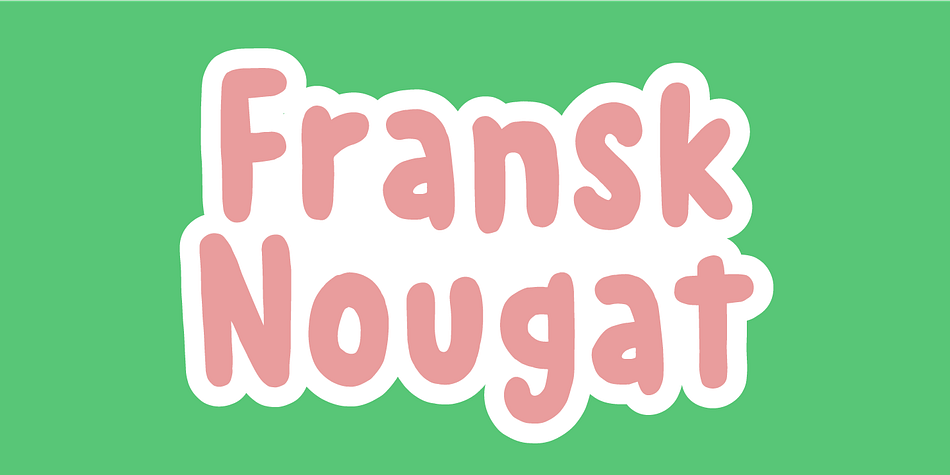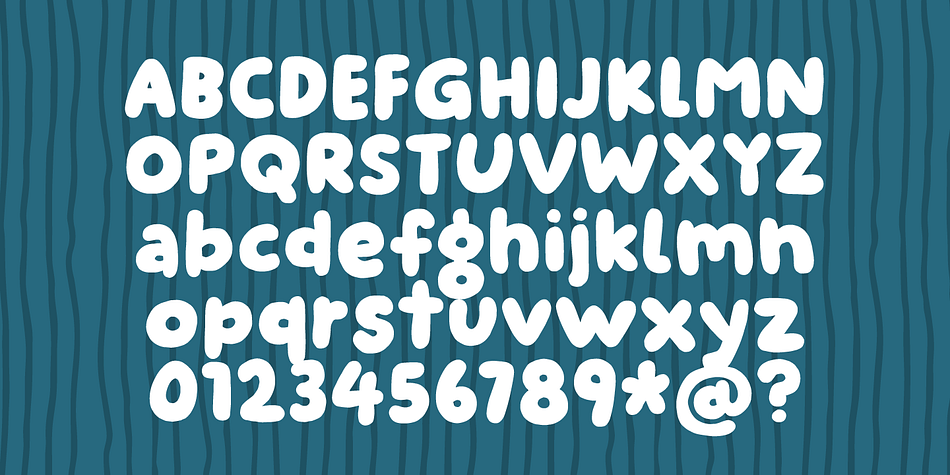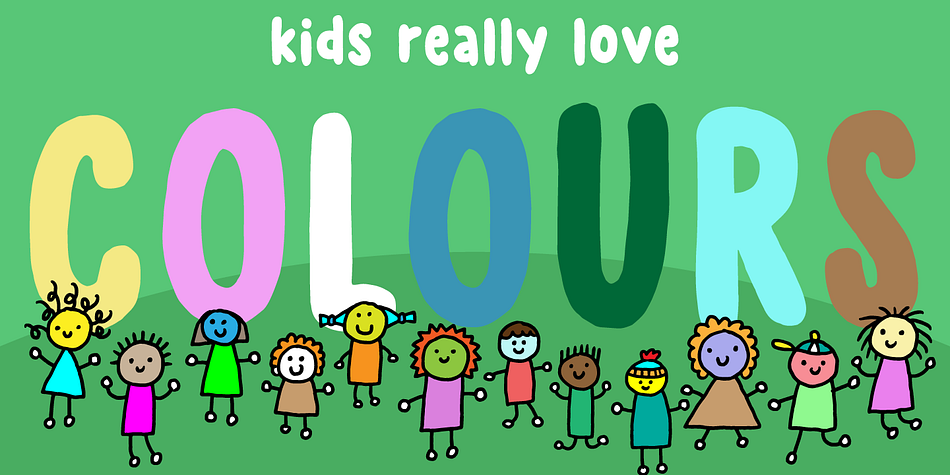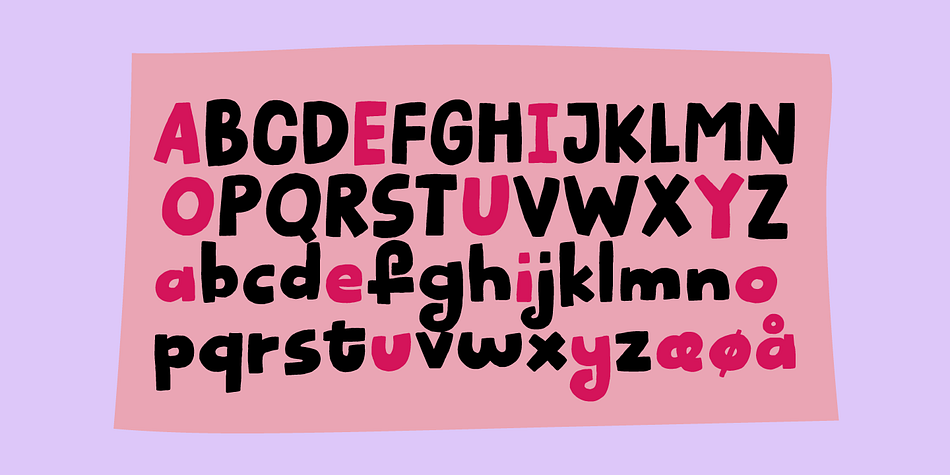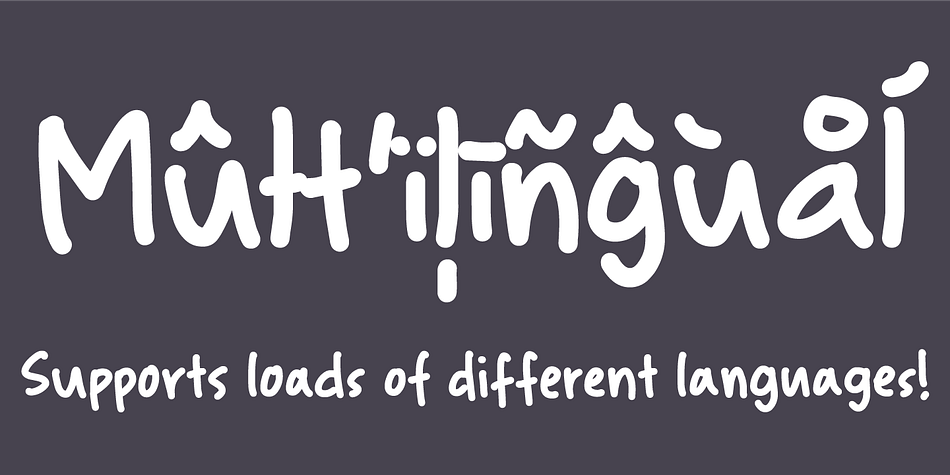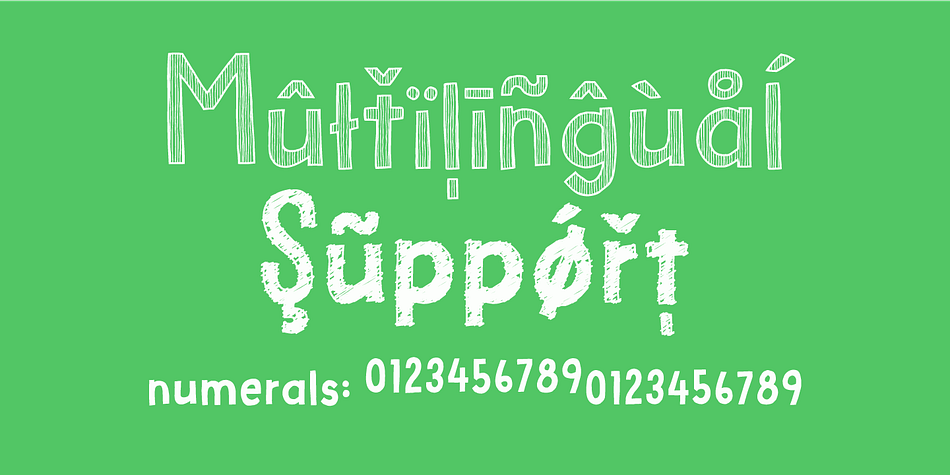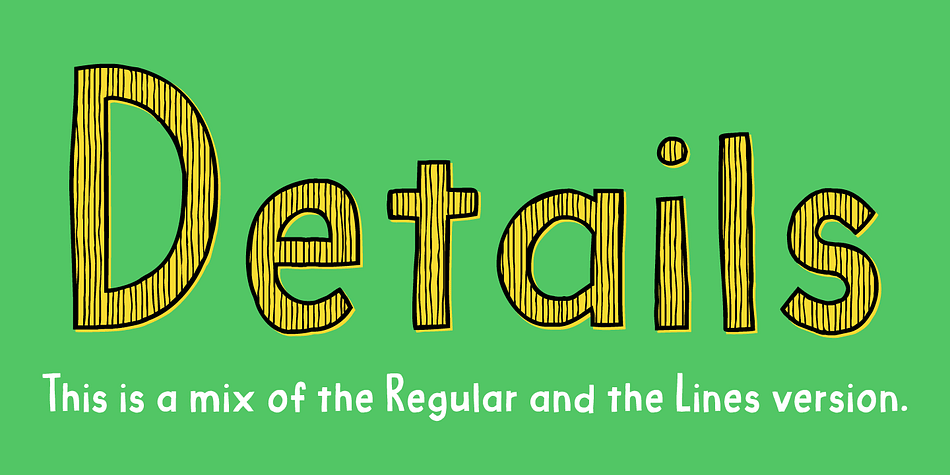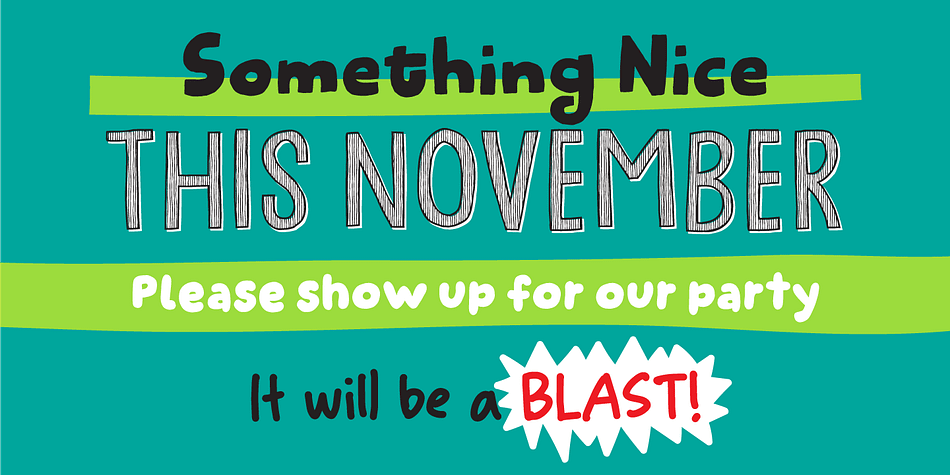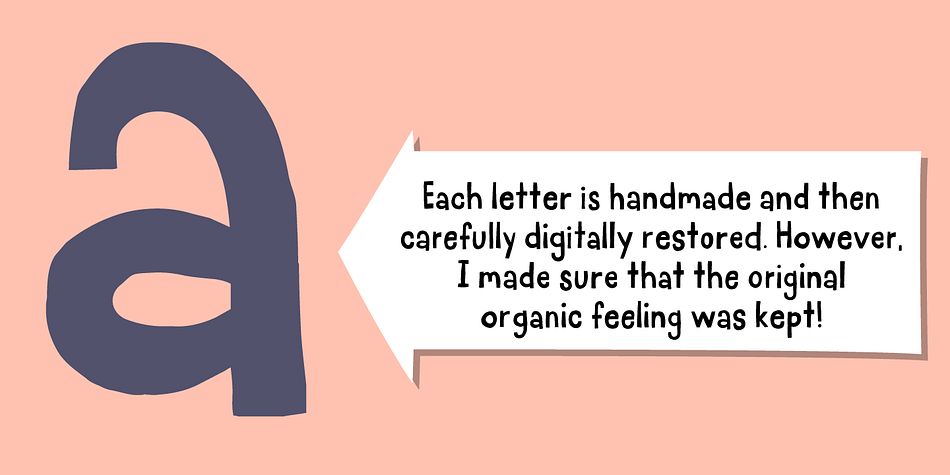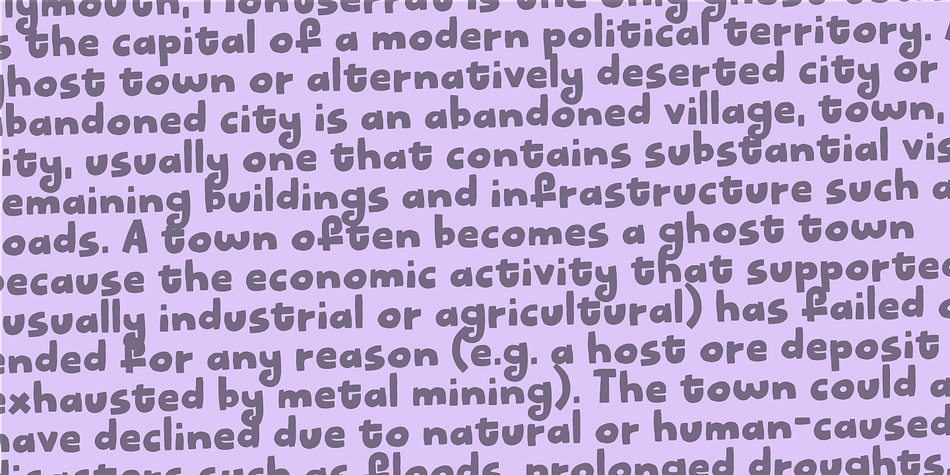
Handmade Sans Super Family
Designed by Jakob Fischer, Handmade Sans Collection is a hand display, hand drawn and kids font collection published by Bogstav.
Here’s my collection of handmade and handpicked fonts.
All of them - 9 families in total - has an elegant, handmade and kind of elegant look. Very useful for something that needs a legible and handmade look!